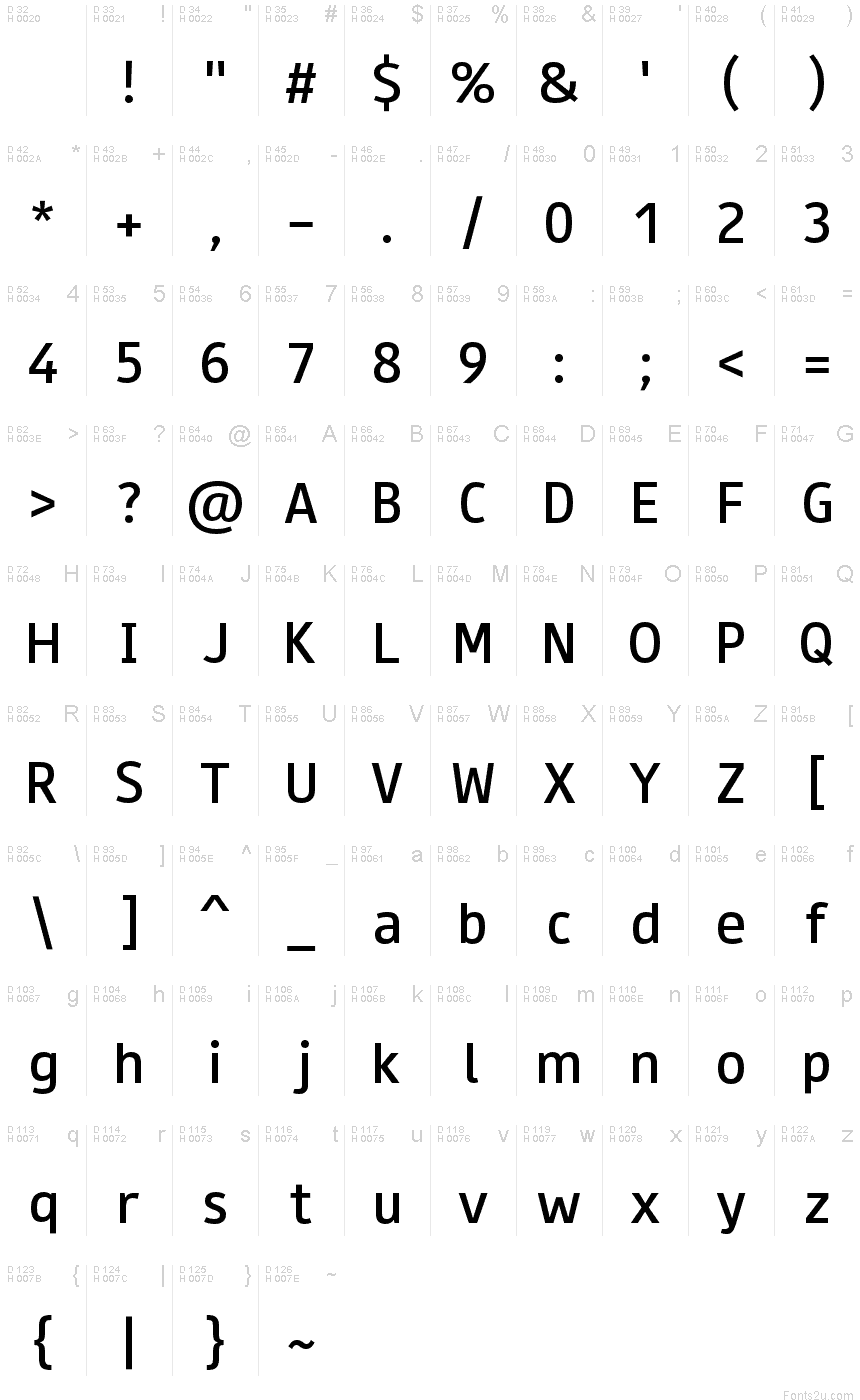
PleaseOptimize Demi-Bold by Michael G. is a free contemporary sans serif with firm, near-monoline strokes, broad capitals, and a clean, upright profile. Its compact lowercase forms are plainly drawn and slightly rounded.
Brand identities are its strongest setting, especially for technology companies or modern services seeking direct, unfussy lettering. The substantial weight also suits product packaging, event posters, digital campaign graphics, and bold venue signage, with squared joins providing crisp structure against the rounded letter shapes. Its straightforward forms should appeal to designers working for business and consumer audiences that favor confident typography over decorative detail.
Font for optimized legibility. Created from custom vectors in Inkscape. First font creation attempt. No kerning and advanced spacing/width. No full ANSI-chars. Please optimize ;-)